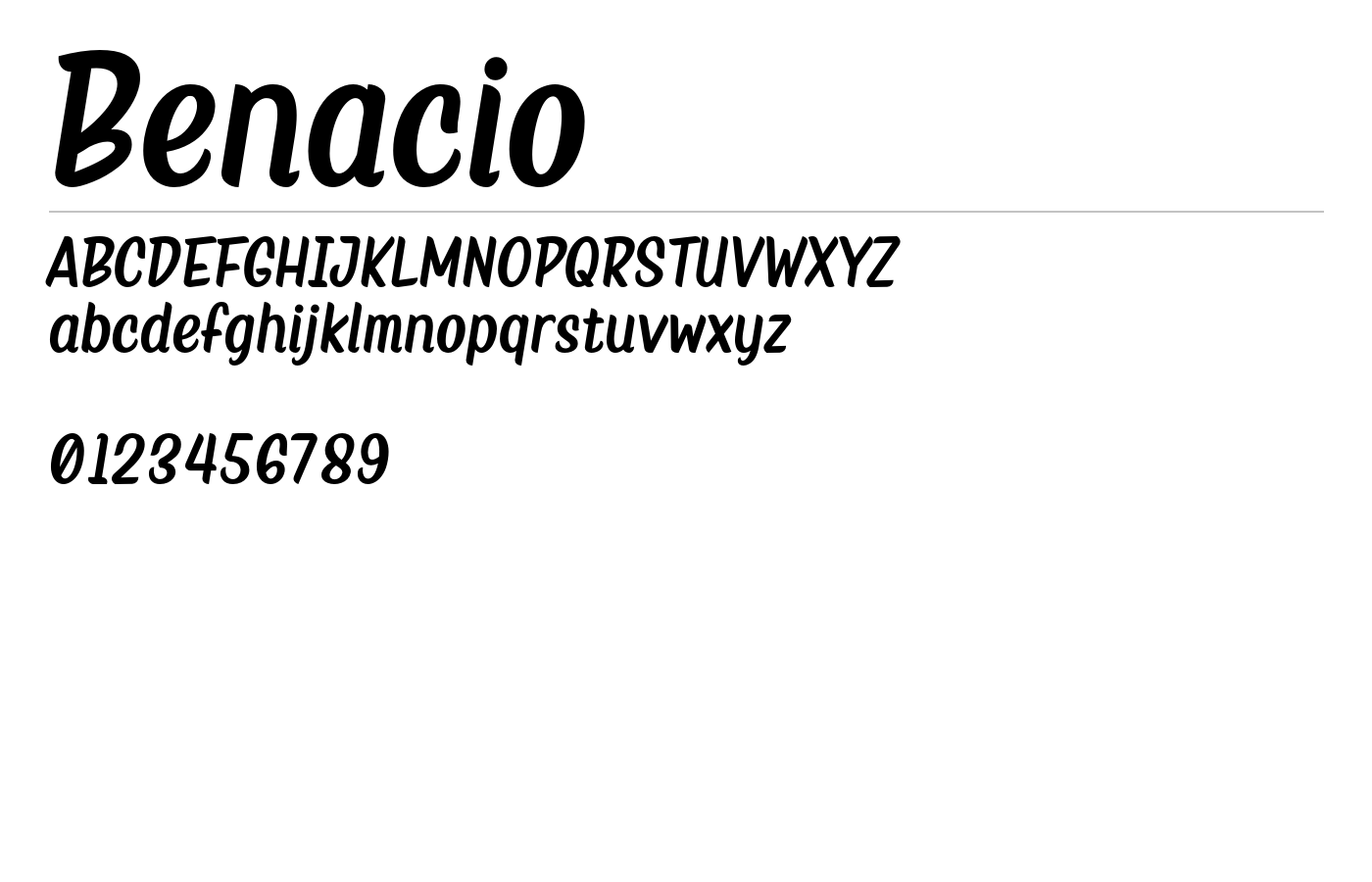
Benacio is a playful and friendly sans serif font with a slight italic slant that adds a dynamic, hand-lettered feel. Its moderate weight and tall x-height make it highly readable, while distinctive rounded shapes and smooth curves give it a casual, approachable personality perfect for branding, packaging, and headlines that want to convey warmth and energy. This font works well where a lively yet clear style is needed, such as logos, posters, and informal editorial content.
Benacio Font
About Benacio Font